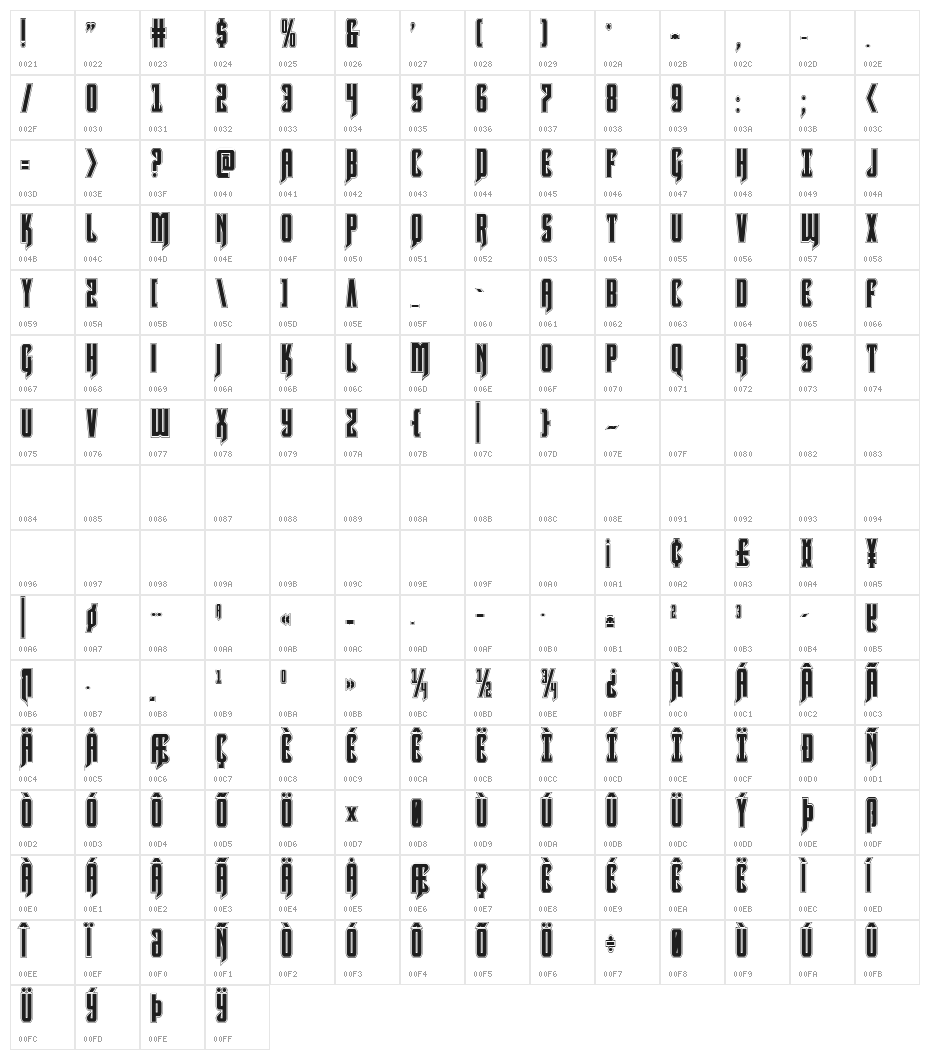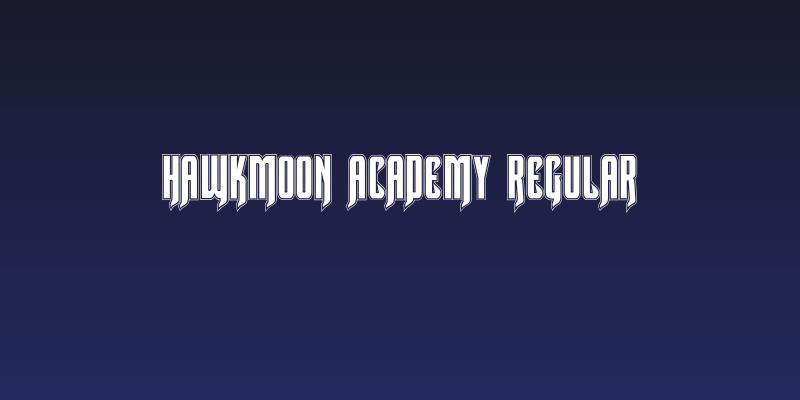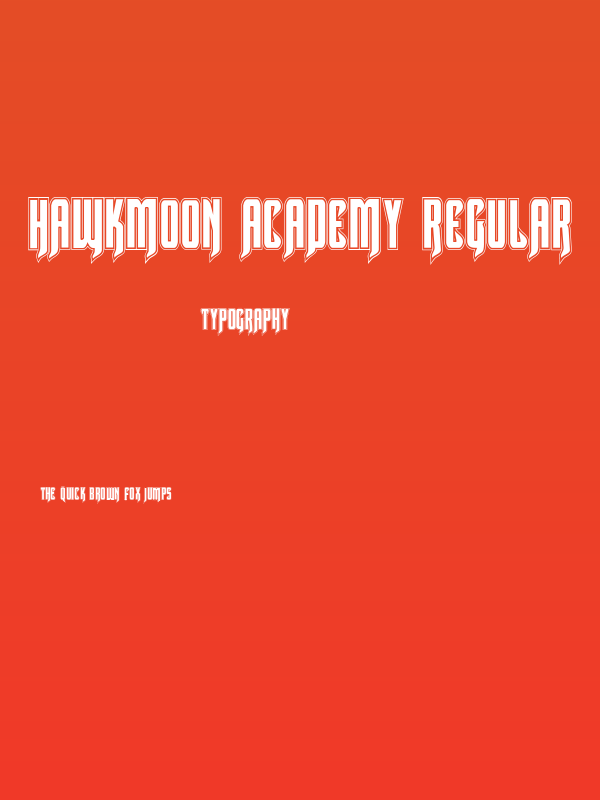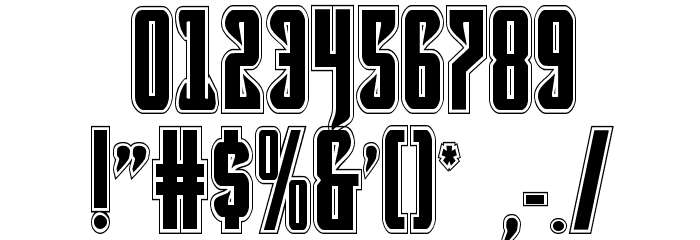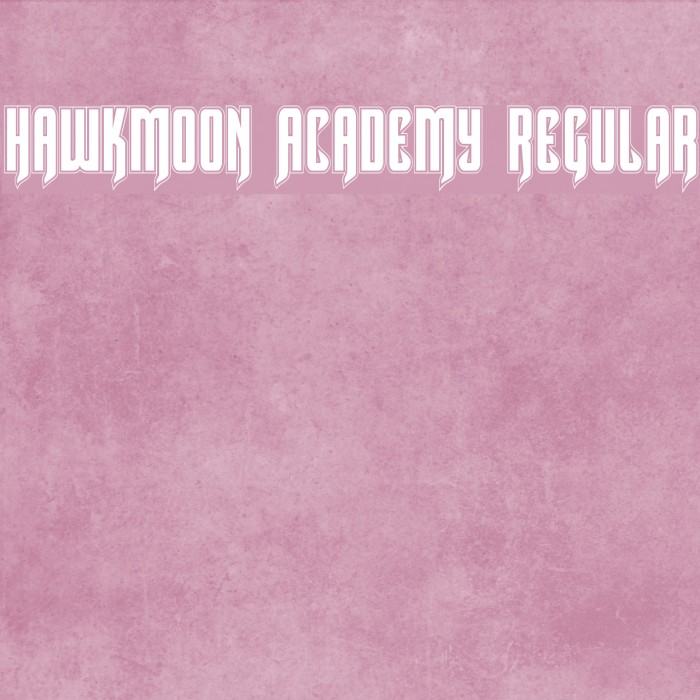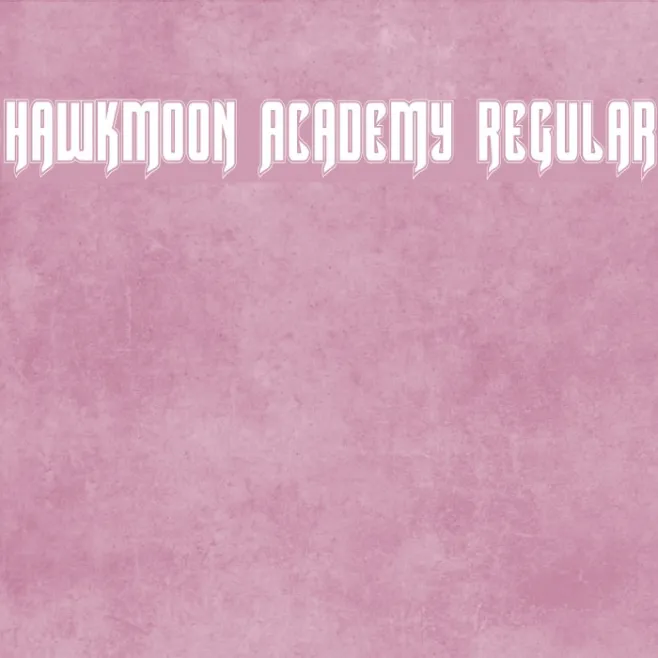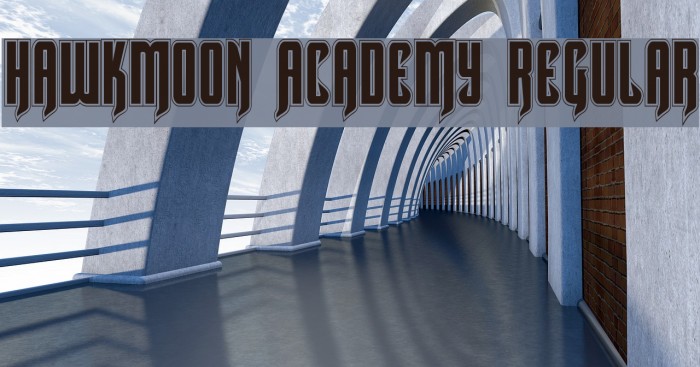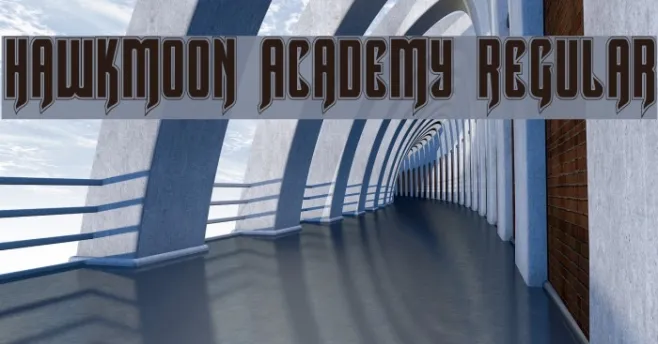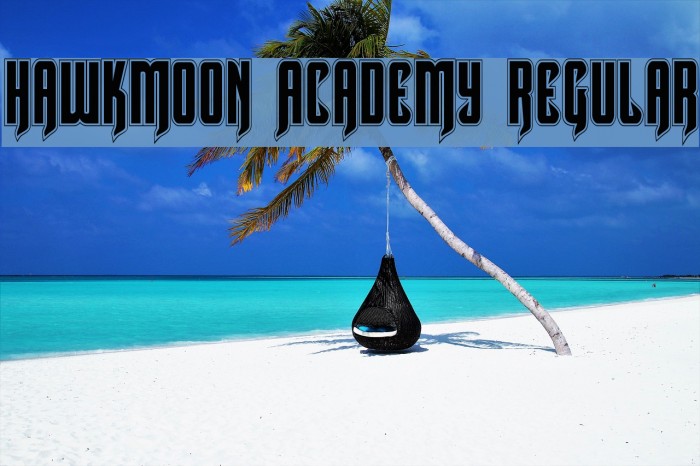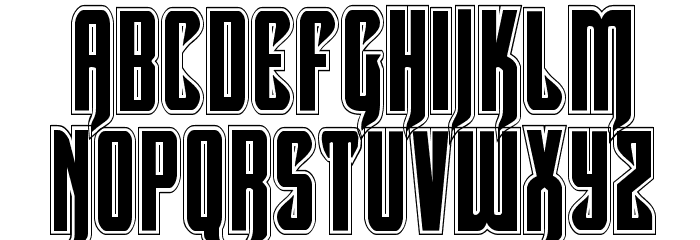
Hawkmoon Academy Regular Font
Hawkmoon Academy Regular Description
This font features a bold and striking design with a strong presence. The characters are outlined with a thick border, giving them a three-dimensional effect. The letterforms are tall and narrow, with sharp angles and a distinct geometric style. The uppercase and lowercase letters maintain a consistent design, while the numbers and special characters complement the overall aesthetic. This font's unique style makes it ideal for attention-grabbing headlines and logos.
| Proposed Projects | Ideal for creating impactful headlines, logos, posters, and branding materials that require a strong visual presence. |